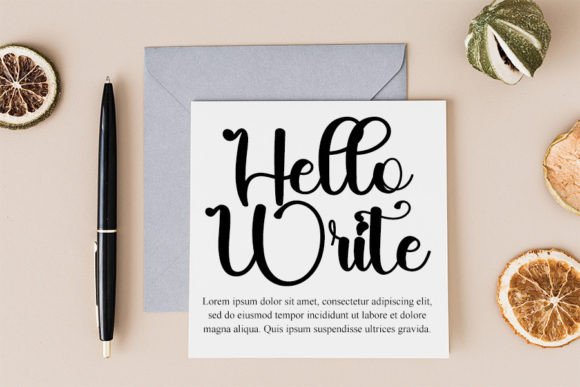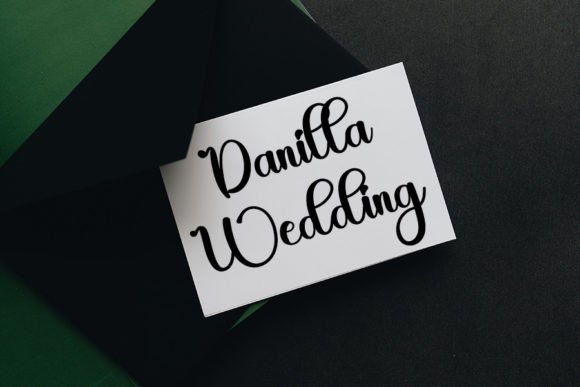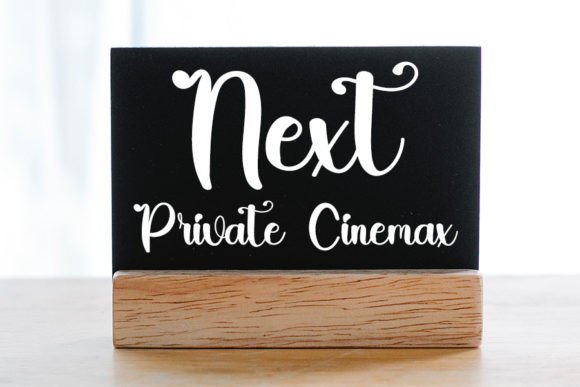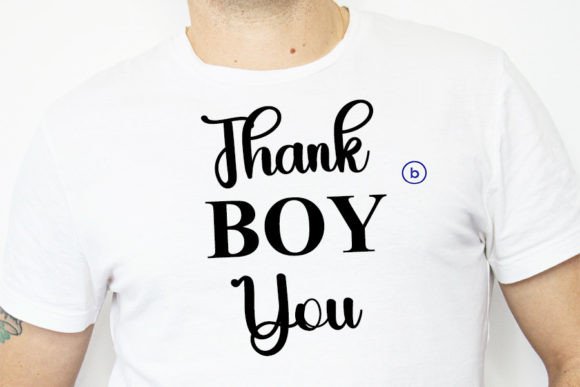
Planner Vintage Font
About Planner Vintage Font
“Planner Vintage” is a stylish handwritten font that exudes a contemporary atmosphere and impeccable form, drawing inspiration from timeless classic calligraphy. This font is crafted with a balanced and varied design, aiming to enhance the beauty of your projects with its unique and stylish aesthetic.
The contemporary vibes of Planner Vintage make it a versatile choice for a variety of design applications. Whether you’re working on branding, advertising, digital designs, or print materials, this font adds a stylish and refined touch to your creations.
The balanced and varied nature of Planner Vintage ensures that it adapts seamlessly to different design contexts. Its handwritten style, infused with a timeless classic calligraphy influence, brings an authentic and personalized feel to your projects.
Incorporate Planner Vintage into your design toolkit to witness how it elevates the beauty of your projects. Let it be the font that adds a contemporary and stylish flair, making your designs stand out and leaving a lasting impression. Whether used for headlines, logos, or other design elements, Planner Vintage is poised to bring a perfect balance of modernity and classic elegance to your creative endeavors.